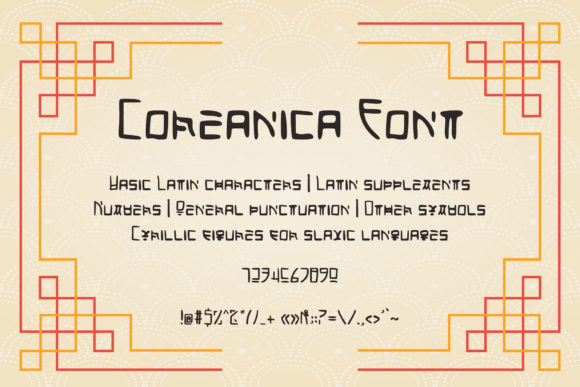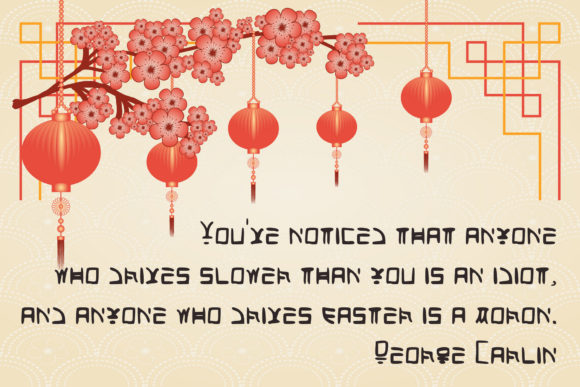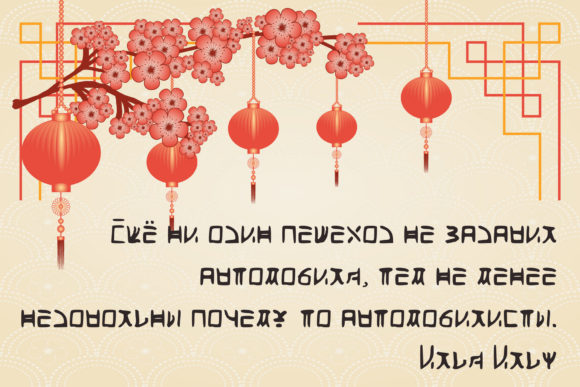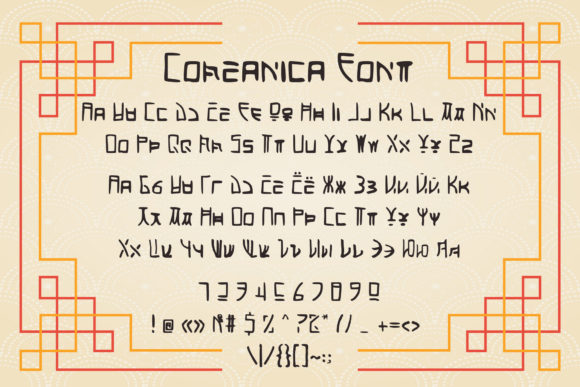
Introducing Coreanica Font: The Ultimate Display Font for Creative Projects
Are you tired of using the same old fonts for your design projects? Look no further than Coreanica Font, a cool and uniquely designed display font that’s sure to elevate your creations. Whether you’re a designer, crafter, or simply someone who loves to dabble in creative projects, Coreanica Font is an incredible asset to have in your font library.
What Makes Coreanica Font So Special?
Coreanica Font is a one-of-a-kind display font that’s designed to make a statement. Its unique and cool design makes it perfect for a wide range of projects, from bold headlines and titles to creative crafts and DIY projects. The font’s versatility is one of its standout features, making it suitable for various topics and themes.
Key Features of Coreanica Font
- Unique Design: Coreanica Font boasts a distinctive design that’s sure to grab attention. Its cool and modern aesthetic makes it perfect for creative projects that require a bold and eye-catching font.
- Versatility: This font is incredibly versatile, making it suitable for a wide range of projects, from digital designs to print materials.
- Easy to Read: Despite its unique design, Coreanica Font is easy to read, making it perfect for headlines, titles, and short paragraphs.
- High-Quality: Coreanica Font is a high-quality font that’s designed to deliver exceptional results. Its crisp and clean design ensures that it looks great in any project.
How to Use Coreanica Font in Your Projects
Coreanica Font is incredibly easy to use, and its versatility makes it suitable for a wide range of projects. Here are some ideas to get you started:
- Digital Designs: Use Coreanica Font to create stunning digital designs, such as social media graphics, blog posts, and website headers.
- Print Materials: This font is perfect for print materials, such as brochures, flyers, posters, and business cards.
- Crafts and DIY Projects: Add a personal touch to your crafts and DIY projects, such as handmade cards, gift tags, and scrapbooking.
Benefits of Using Coreanica Font
Using Coreanica Font in your projects offers a range of benefits, including:
- Increased Creativity: This font’s unique design is sure to inspire your creativity and help you create stunning projects.
- Improved Readability: Coreanica Font is easy to read, making it perfect for projects that require clear and concise communication.
- Professional Results: With Coreanica Font, you can achieve professional-looking results, even if you’re not a seasoned designer.
Tips and Tricks for Using Coreanica Font
- Experiment with Different Sizes: Coreanica Font looks great in various sizes, so don’t be afraid to experiment and find the perfect size for your project.
- Pair it with Other Fonts: This font pairs well with other fonts, so try combining it with different fonts to create a unique and visually appealing design.
- Use it for Headlines and Titles: Coreanica Font is perfect for headlines and titles, so use it to grab attention and add a touch of personality to your projects.